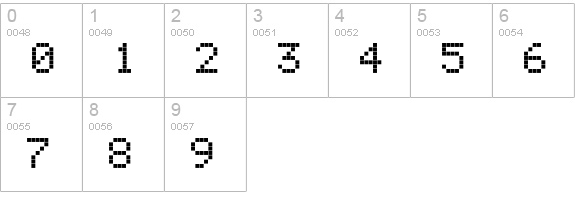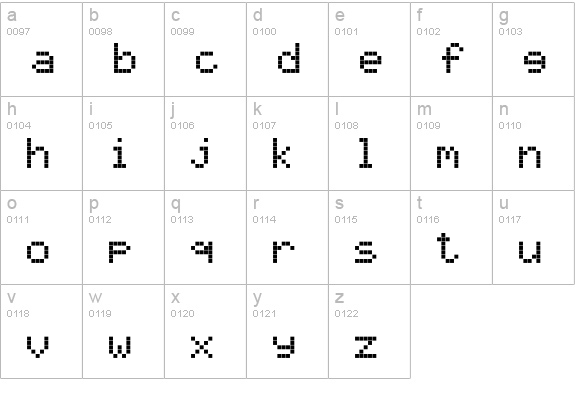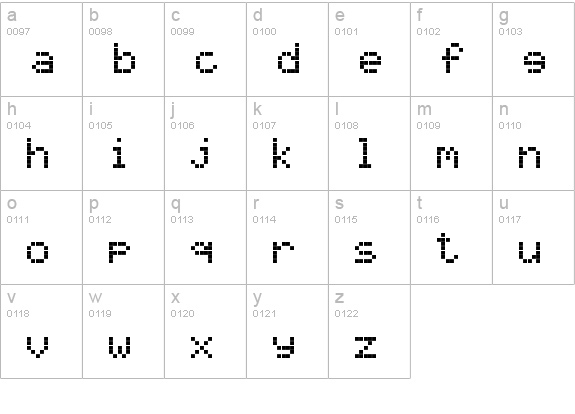
Ericsson GA628 Font Details
Introducing the exquisite Ericsson GA628 font, a stylish and modern typeface that exudes elegance and sophistication. With its sleek lines and clean design, this font is perfect for a wide range of design projects, from branding to editorial layouts. What sets the Ericsson GA628 font apart is its versatility and readability, making it an ideal choice for both print and digital applications. Whether you're creating a logo, poster, website, or even a social media graphic, this font will elevate your design to the next level. And the best part? The Ericsson GA628 font is available for free download at FontsMarket.com, making it accessible to designers and creatives of all levels. Don't miss out on the opportunity to enhance your projects with this stunning font. Download it today and let your creativity shine!